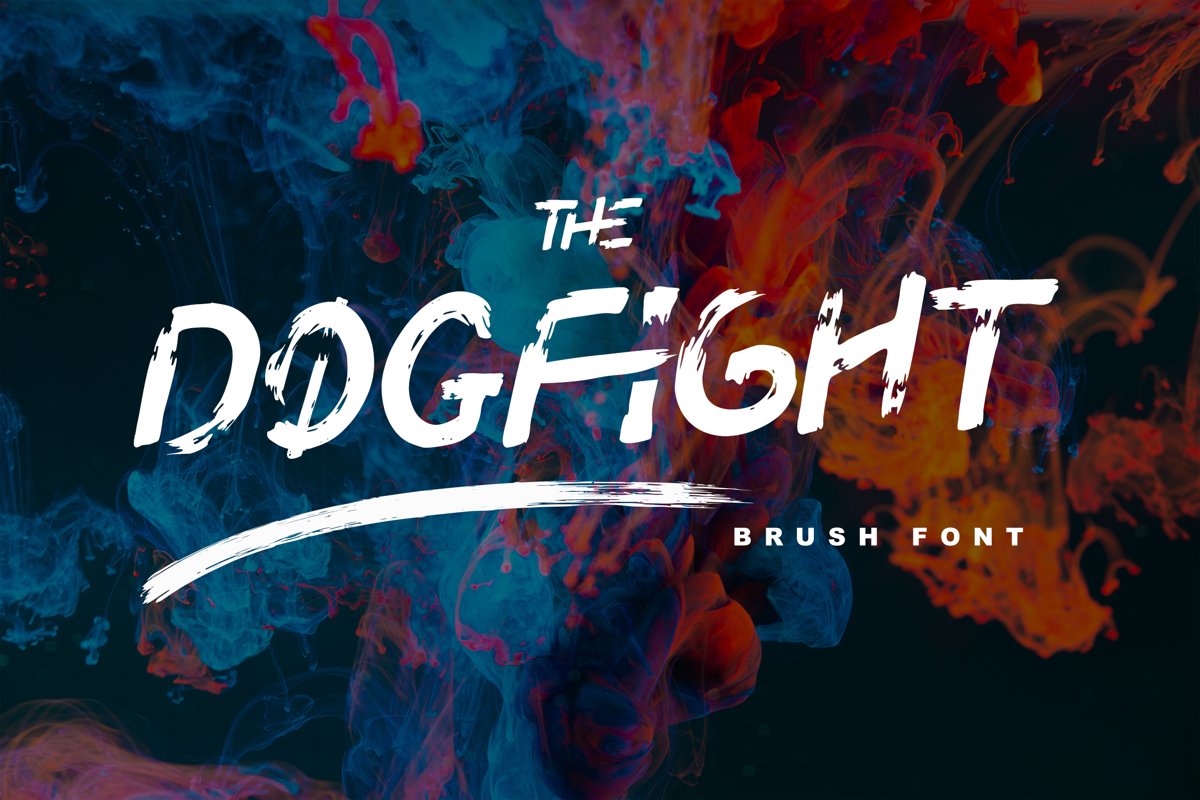
DOGFIGHT - Strong and Bold Brush Font
Dogfight
Dogfight Italic
Dogfight is a hand-crafted brush font which created from scratch by using a brush pen on a paper. It is not that too sharp with sharp edges, but with more soft rounded shape. It is suitable as a display font for printed or digital products. Mainly as an advertisement or video production.
It comes with Regular and Italic for:
Multilingual characters
Allcaps
Ligatures
Alternate characters